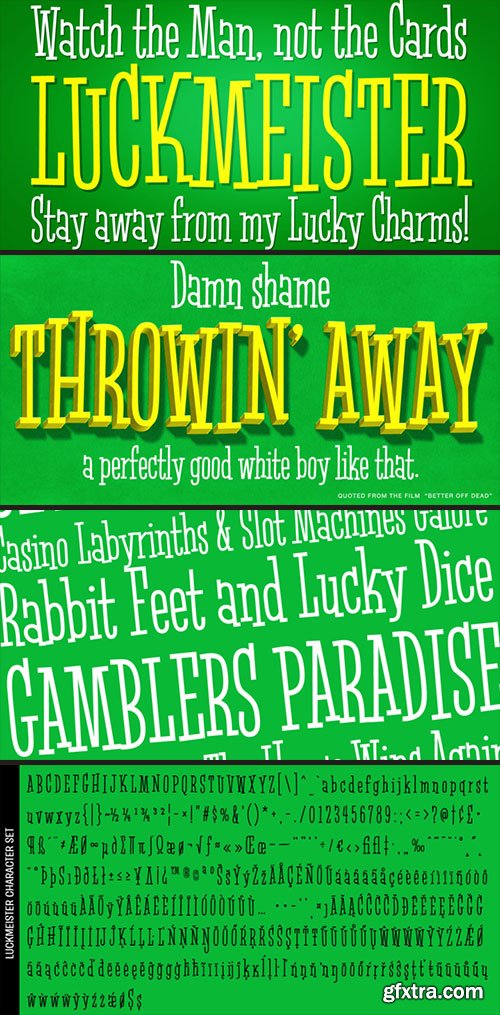
Luckmeister PB - Animated Condenced Serif Type $14
- From the vintage record cover, “Music from MR. LUCKY”, composed and conducted by Henry Mancini, comes this offbeat and full of life condensed serif typeface. A uniform stroke structure and a light baseline bounce give this typeface a festive yet serious duality of a personality.